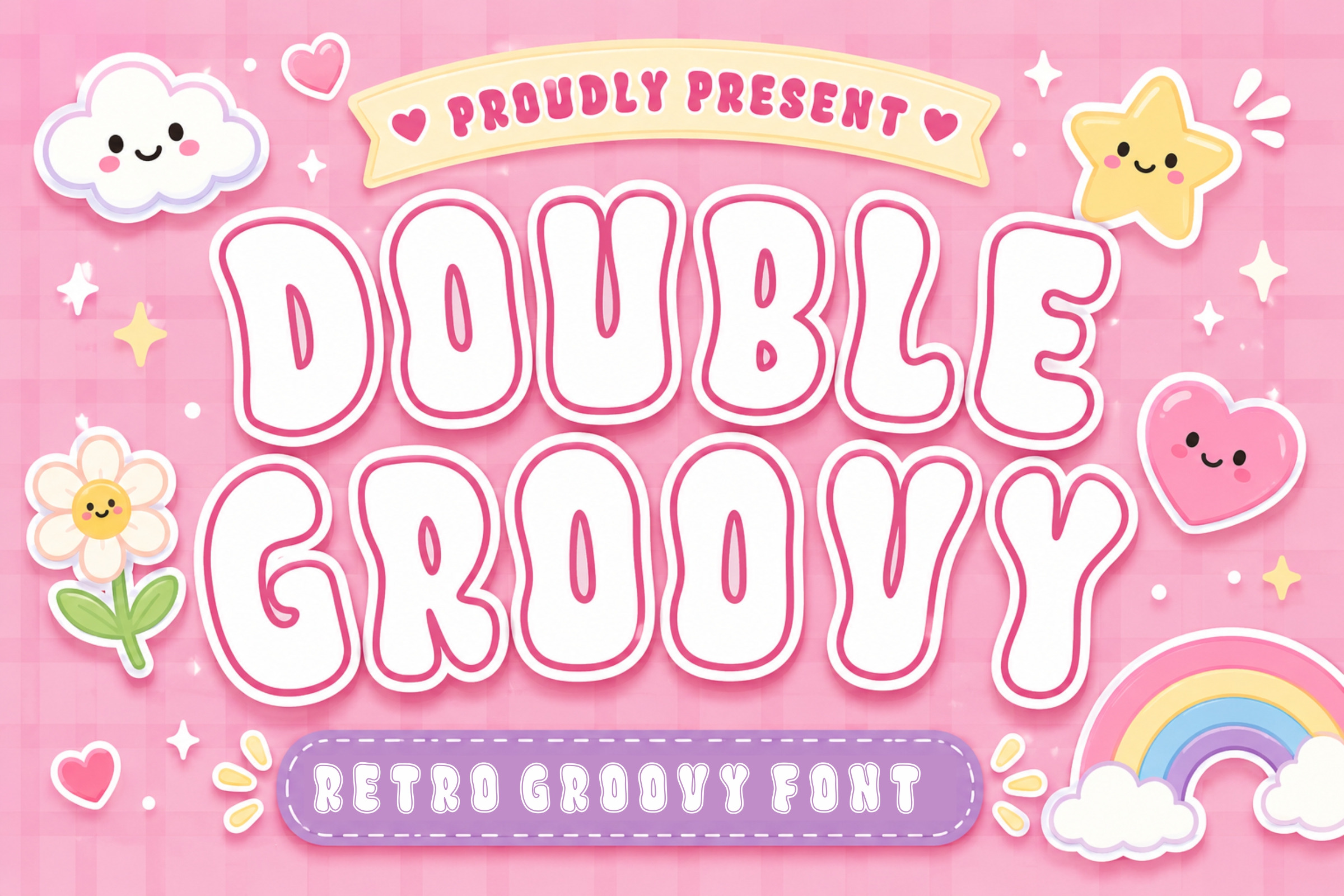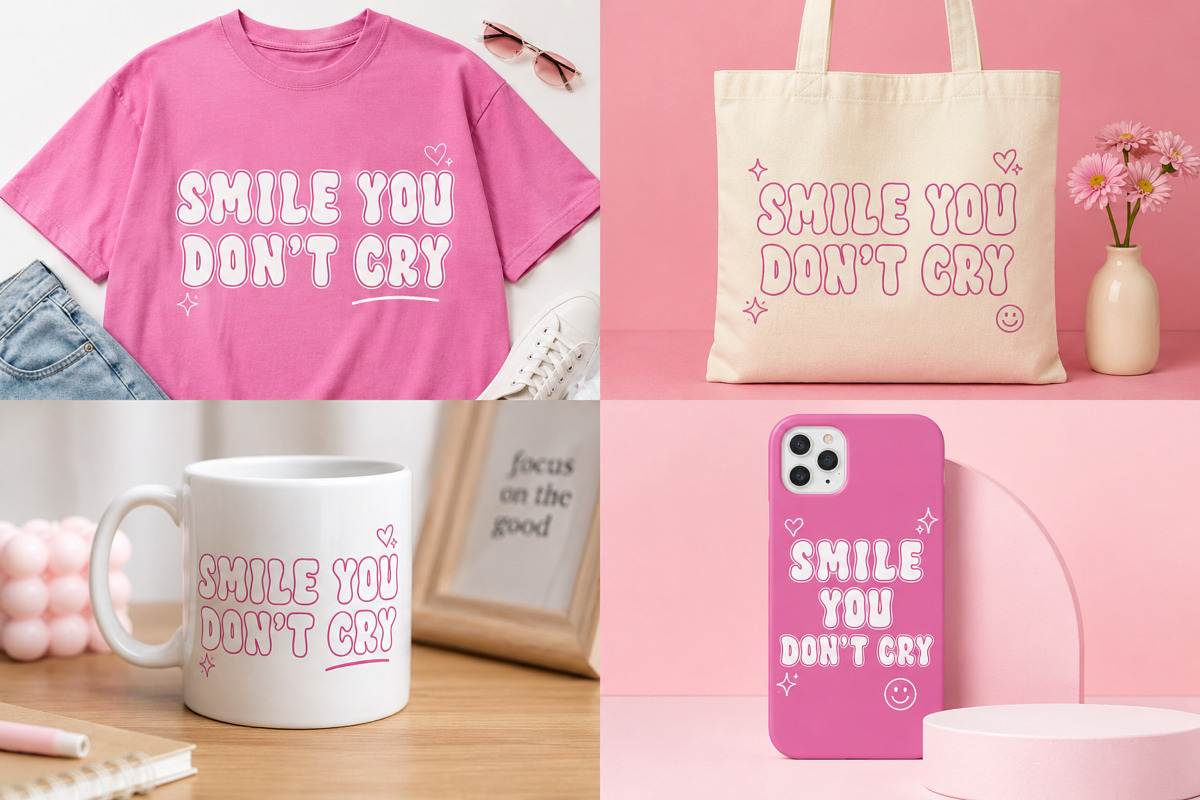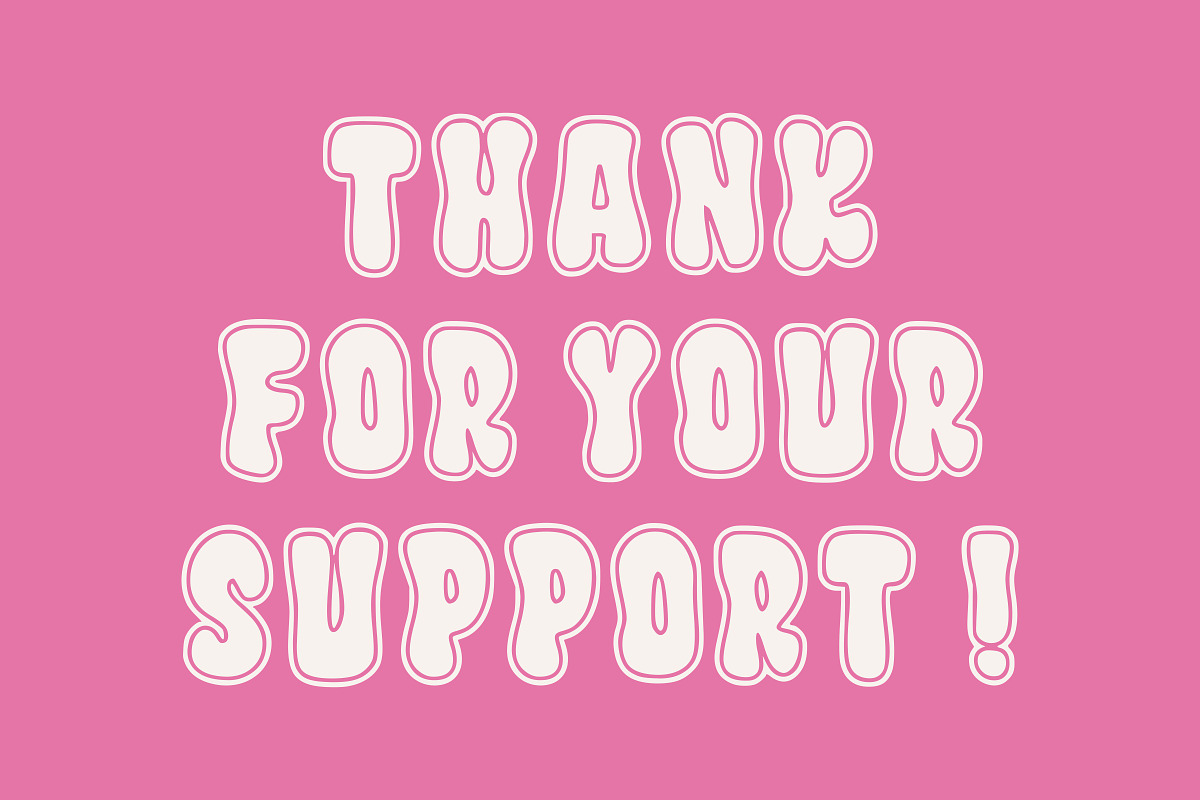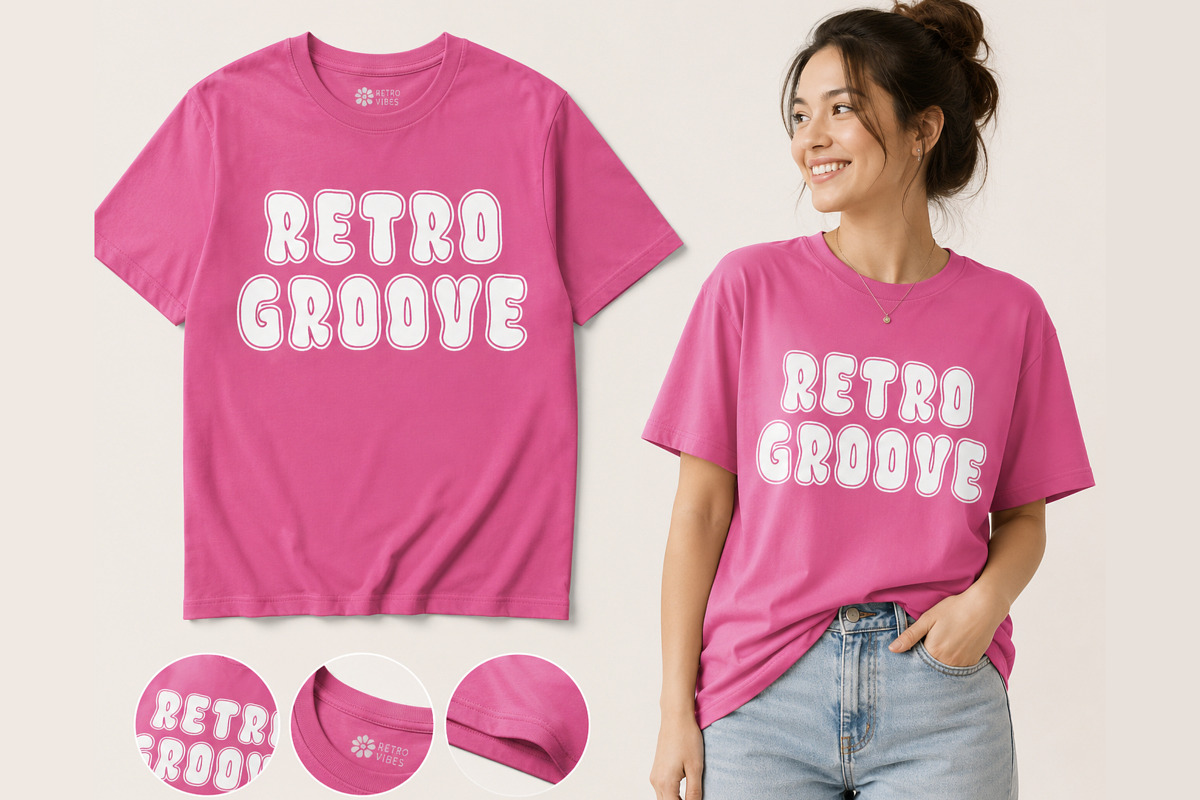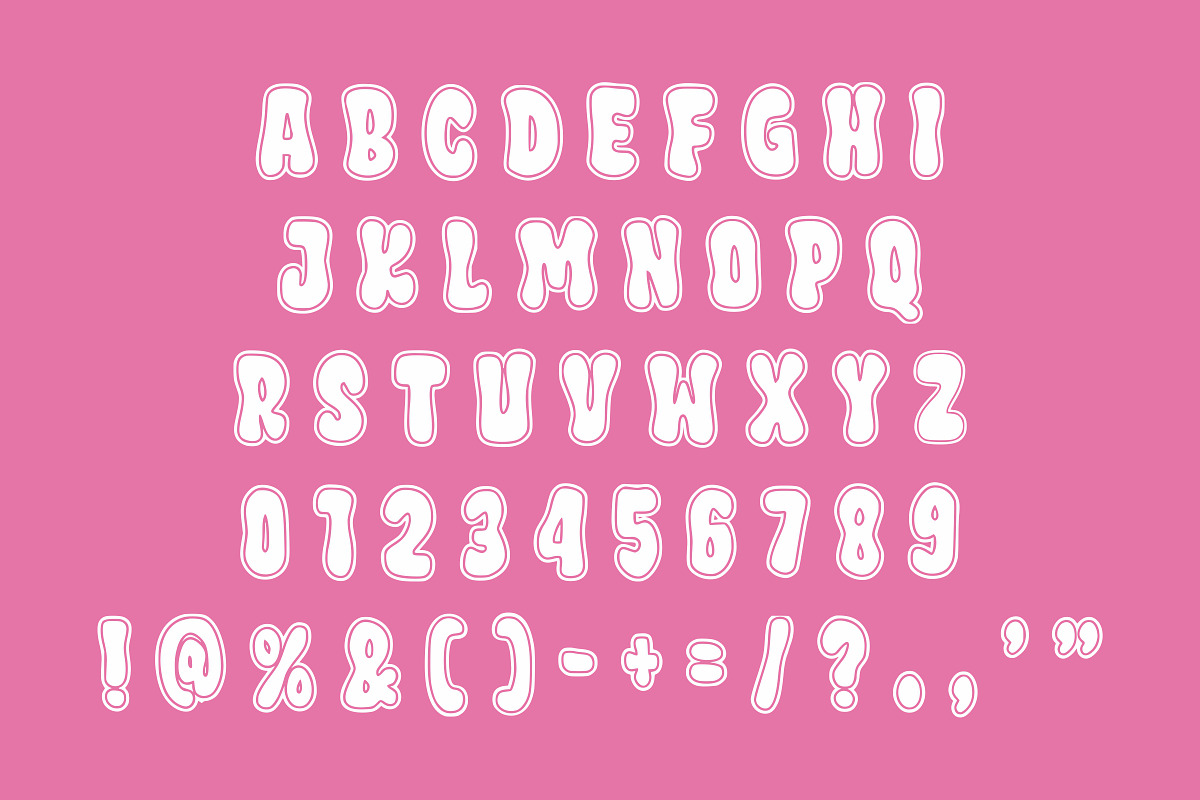
Double Groovy - Retro Font
Double Groovy is a fun and playful retro display font featuring chunky rounded letterforms, bubbly curves, and a cheerful vintage aesthetic. Its soft shapes and bold outlined appearance make it perfect for eye-catching designs with a cute, nostalgic, and groovy personality.
Perfect for kids’ designs, apparel, stickers, posters, packaging, invitations, branding, social media graphics, and retro-inspired projects.
Playful retro groovy style
Bold and chunky bubble letterforms
Rounded, friendly shapes
Perfect for headlines and display typography
Great for both digital and print projects
Ideal for apparel, stickers, posters, packaging, and branding